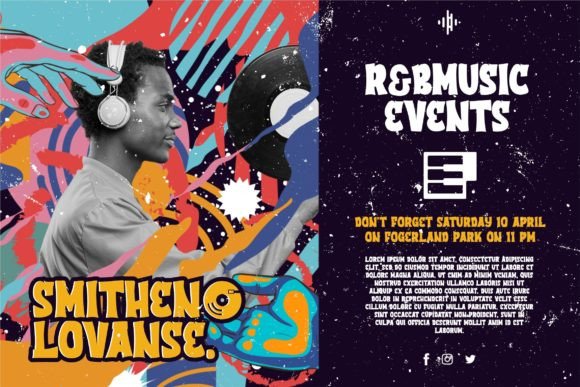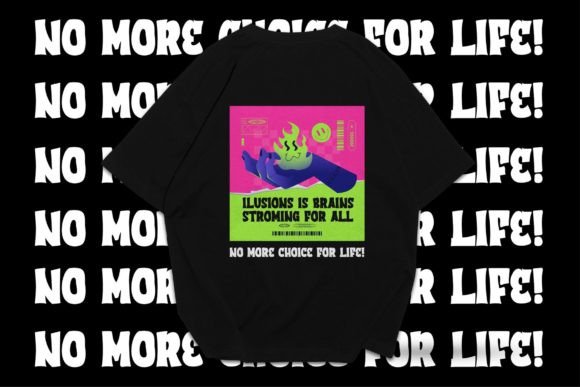
Unlock the Power of Bold Typography with Begun Spent Font
Have you ever stared at a blank design canvas, waiting for that spark of creativity to strike? For designers, those moments are what make the job so thrilling – the rush of coming up with a concept that’s both unique and impactful. When it happens, it’s like the whole design world opens up, and possibilities become endless.
One tool that can help unleash that creative energy is the Begun Spent Font, a bold and striking typographic solution that’s perfect for making a statement. With its minimalist yet futuristic design, Begun Spent Font is ideal for large titles, posters, logos, and any project that requires a strong visual presence. Whether you’re a seasoned designer or just starting out, this versatile font is a valuable addition to your toolkit, offering a dynamic and energetic touch to your designs.
Begun Spent Font Key Features
- Font Family: Begun Spent is a sans-serif font family designed for use in digital media.
- Size: Begun Spent font family includes 12 styles, ranging from Thin to Black, with corresponding font sizes and weights.
- Unique Characteristics: The font features a unique blend of modern and industrial design elements, with a focus on legibility and readability.
- Language Support: Begun Spent font family supports a wide range of languages, including Latin, Cyrillic, and Greek alphabets.
Begun Spent Font Review
Overall, I have mixed feelings about the Begun Spent Font. ✨ One of the things I appreciate is its unique, handwritten feel, which can add a touch of personality to any design. The font is quite versatile and can be used for a wide range of projects, from logos to body text.
Here are some of the font’s notable features:
- ✨ High level of customization options, allowing designers to adjust the font’s appearance to suit their needs
- ✨ Good legibility, making it suitable for both short and long blocks of text
- ✨ Supports a wide range of languages, including Latin, Cyrillic, and Greek scripts
- ⚠️ Some users may find the font’s irregularities and imperfections distracting, especially in large blocks of text
- ⚠️ Limited support for certain font sizes and resolutions, which can lead to readability issues
- ⚠️ May not be suitable for formal or corporate designs, as its casual, handwritten feel may not be in line with brand guidelines
Overall, the Begun Spent Font is a solid choice for designers who want to add a touch of personality to their projects. While it has its limitations, it can be a great addition to a designer’s toolkit when used thoughtfully and in the right context.
- Use Begun Spent Font for titles, headings
Alternatives to “Begun Spent Font” for Designers
Open Sans is a clean and modern sans-serif font, suitable for body text, headings, and titles. It’s highly legible and works well in both print and digital media.
Compared to Begun Spent Font, Open Sans has a more neutral tone and is more versatile, making it a better choice for a wide range of design projects.
Montserrat is a geometric sans-serif font inspired by the urban landscape of Buenos Aires. It’s ideal for titles, headings, and logos, and works well in digital and print media.
While Begun Spent Font has a distressed look, Montserrat has a more modern and sleek appearance, making it a better choice for projects that require a more polished look.
Lato is a modern sans-serif font with a friendly and approachable feel. It’s suitable for body text, headings, and titles, and works well in both print and digital media.